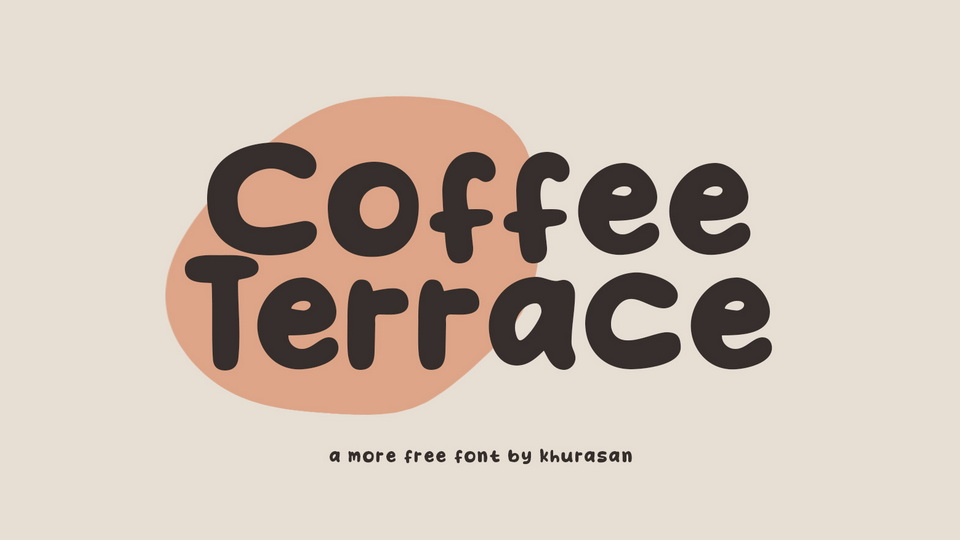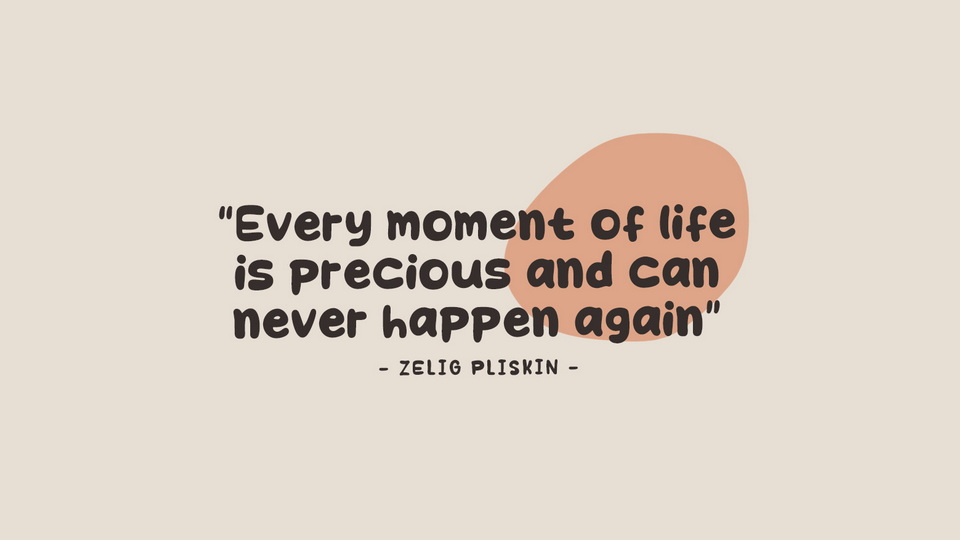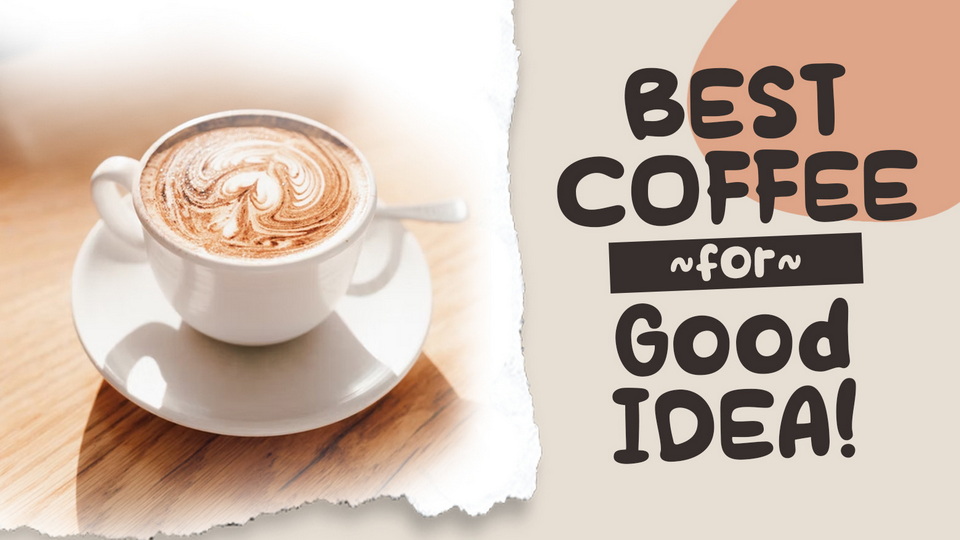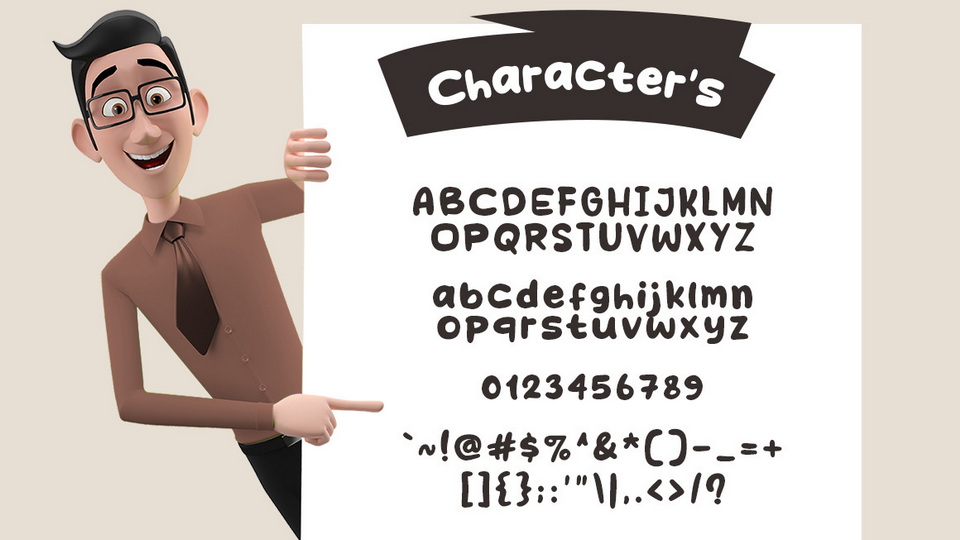
Coffee Terrace is a hand lettered comic font designed with a cute and playful look. The font is perfect for anything from quotes and packaging designs to greeting cards and children’s books. Add a funny and quirky touch to your designs with Coffee Terrace font.